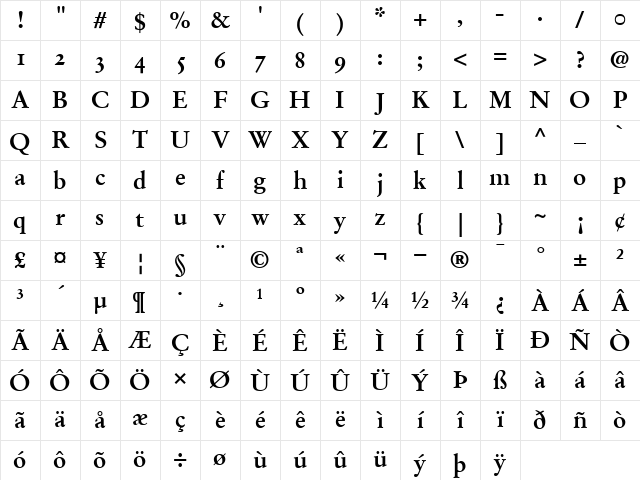
StempelGaramondOldstyleFigures Bold
Design Context for StempelGaramondOldstyleFigures
StempelGaramondOldstyleFigures carries the refined structure of traditional serif typography, with bracketed terminals and considered proportions that communicate credibility and craft. Its bold stroke weight gives it real presence on the page.
Pro Tip: Use StempelGaramondOldstyleFigures for editorial body copy and considered headline work. Pair with a neutral sans for UI elements or captions to create a classic hierarchy.